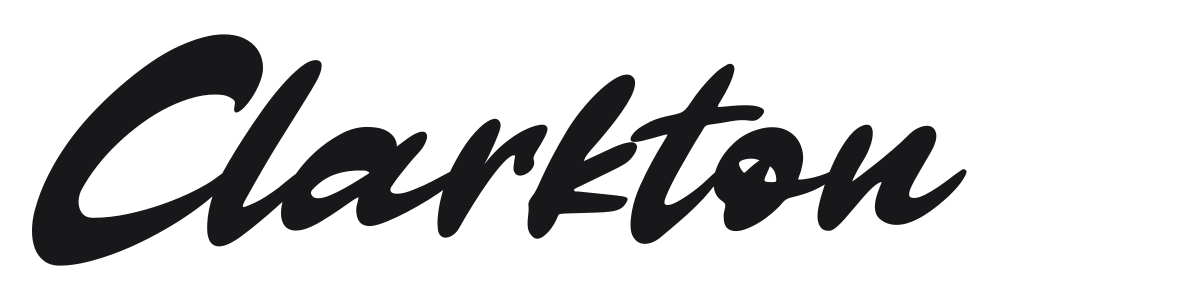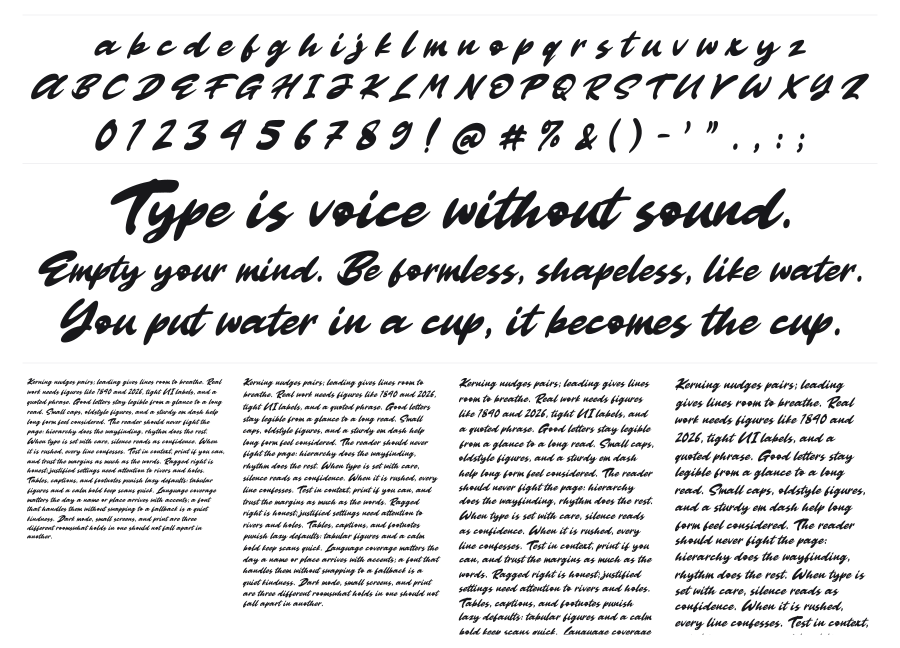
Clarkton
by Weape Studio · Website
Clarkton is a bold brush script with an expressive, hand-inked energy and confident forward momentum. The thick connected strokes and natural ink texture give it an artisanal, street-lettering quality without feeling rough. It reads well at large sizes for logos, packaging, and editorial headlines.